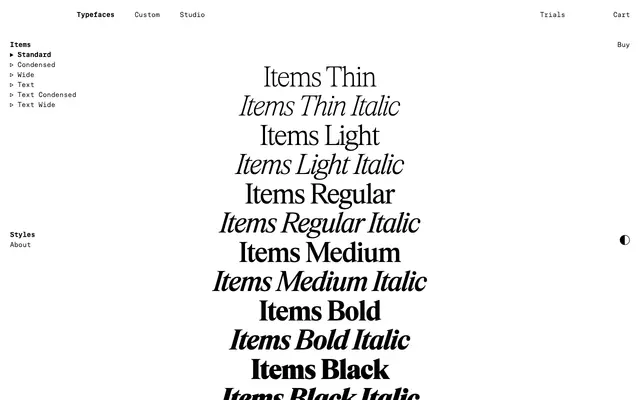
Items Standard
The standard width of the Items display branch: a Times-lineage transitional serif for headlines, with tight letter fit and tapered joints across six weights and italics.
Items Standard is the standard-width display cut of the Items family. Tight letter fit and slick tapered joints optimise it for crisp titles and headlines, and six weights from Thin to Black with matching italics extend its range across editorial hierarchy. It connects to Items Condensed and Items Wide on the width axis and to the Items Text branch for body sizes, all sharing the same constant top-serif angle and consistent contrast axis that the foundry use to overcome the limitations of Times and its peers.
The Standard width of Items, the display branch of the Items system; tight letter fit and tapered joints, optimised for titles and headlines and tied to the early-digital serif tradition.